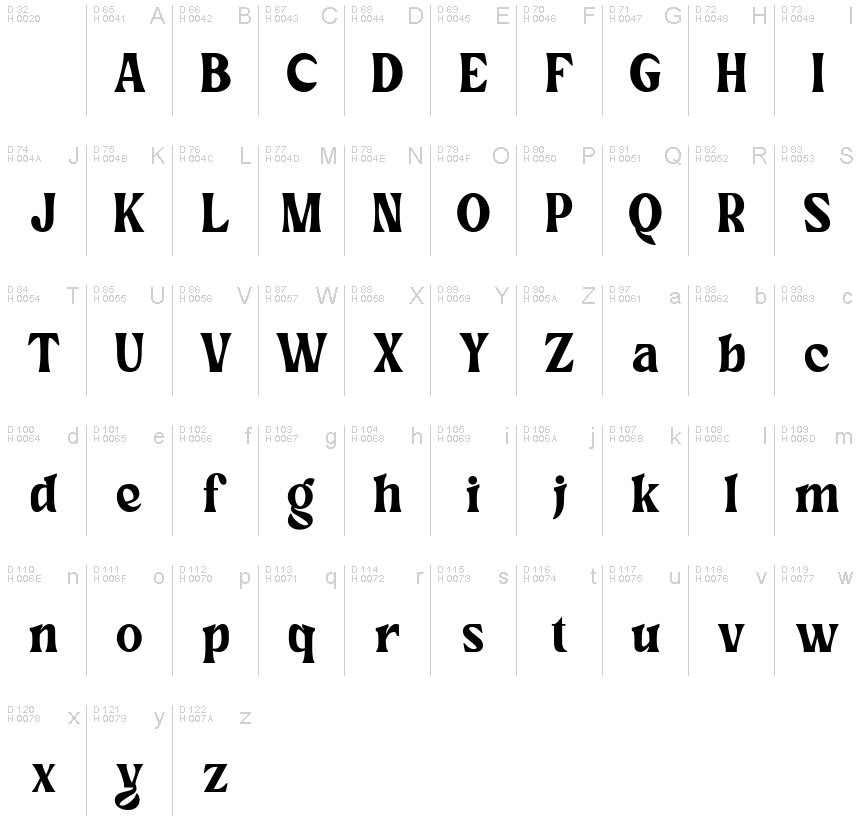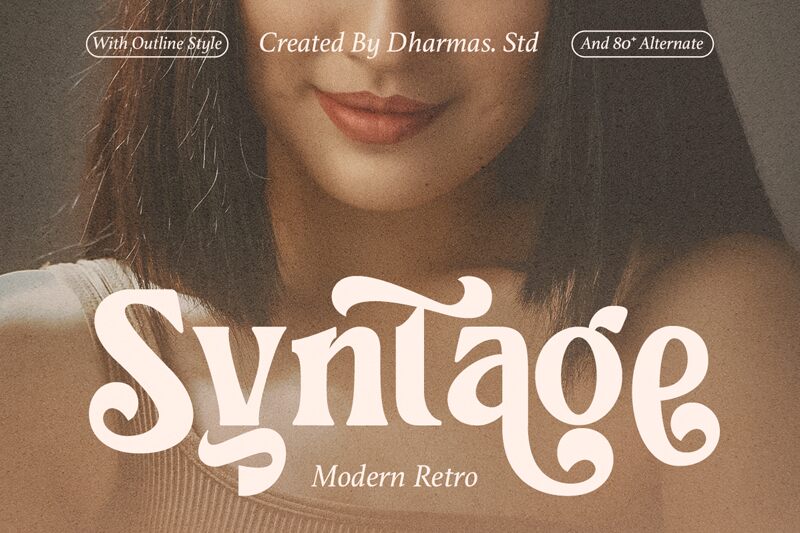
Syntage font, created by Dharmas Studio, is a display typeface that is very attractive because it combines today’s world with the old-fashioned style of design. It has strong and soft lines which are curved like waves and have funny shapes to make it ideal for designs that want to look back at the past. For example, this modern vintage typeface is perfect for attention-grabbing posters, engaging headlines and unique styles of branding.
The Syntage font bears a distinctiveness that makes it suitable for use in both digital and print media. It outperforms in situations where an individual voice is vital; say in themed graphic or retro motivated promotional items.